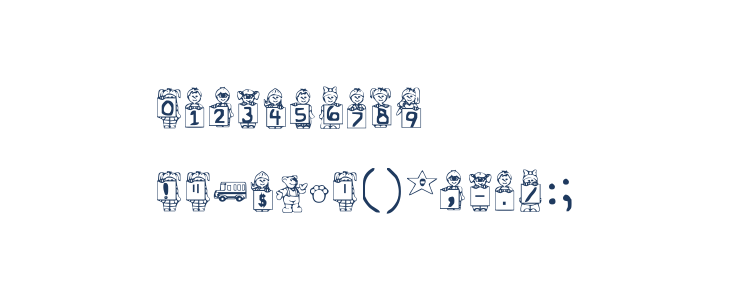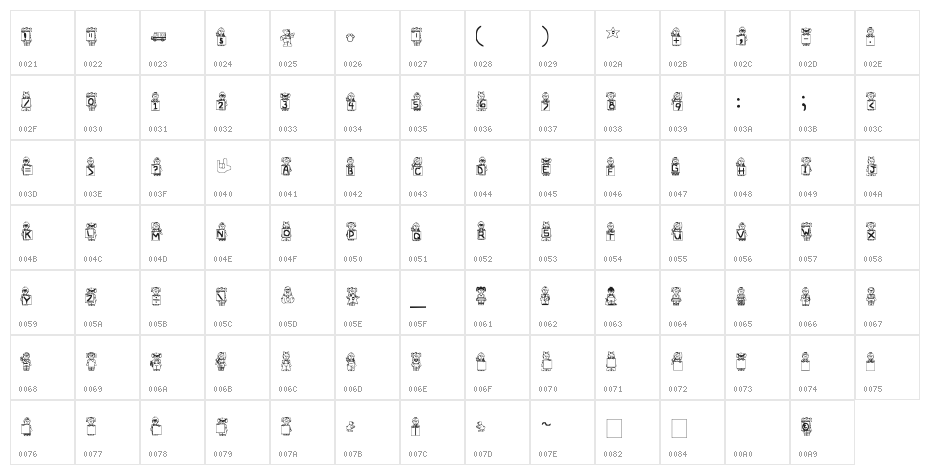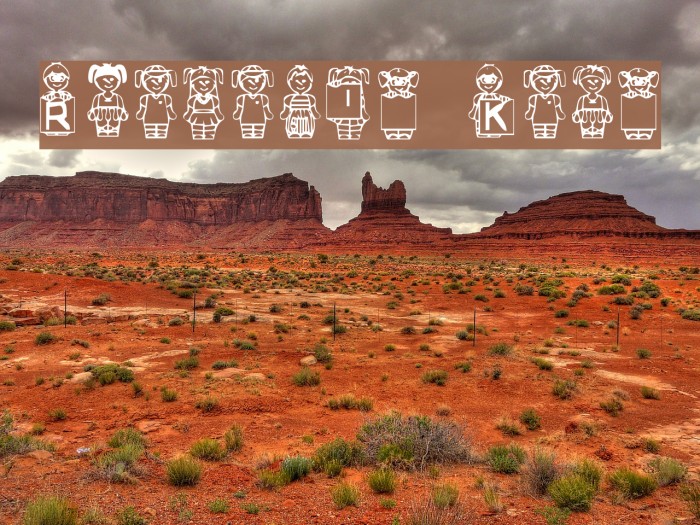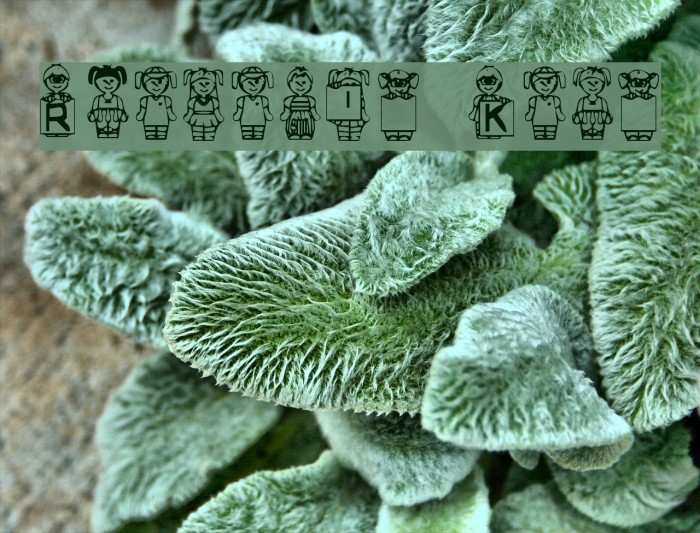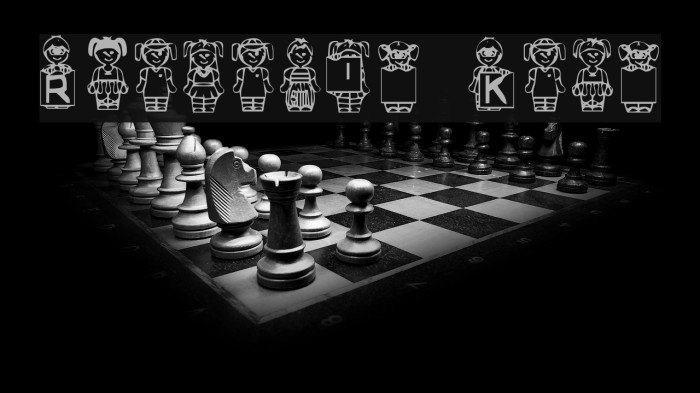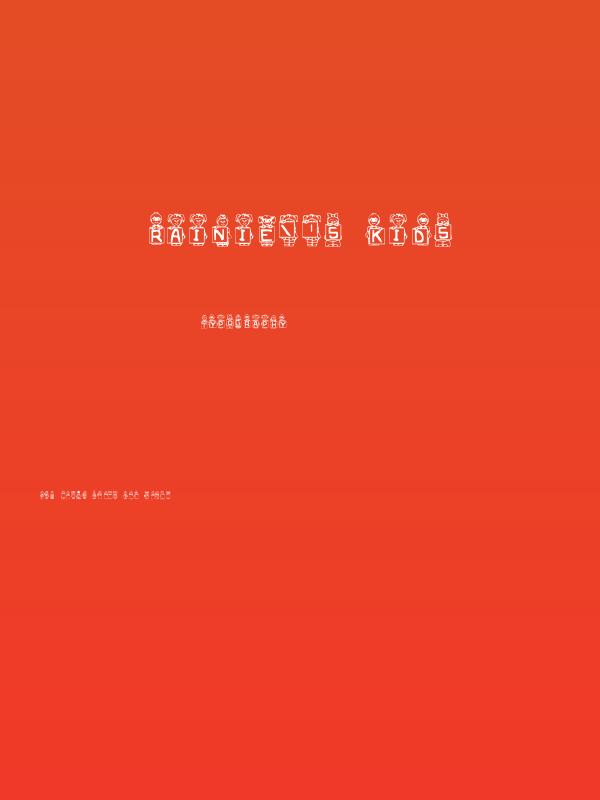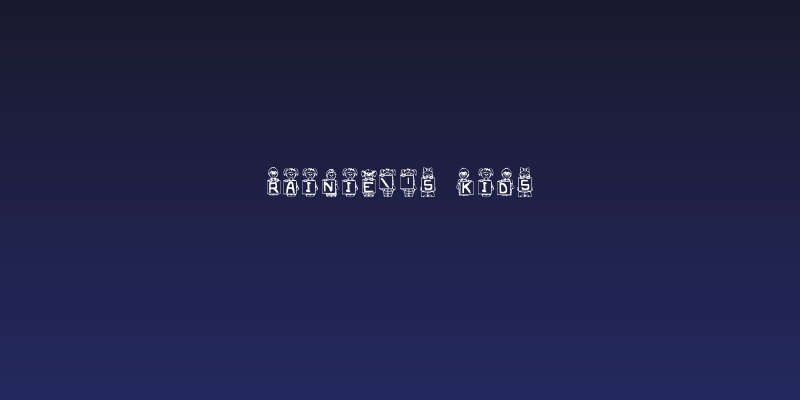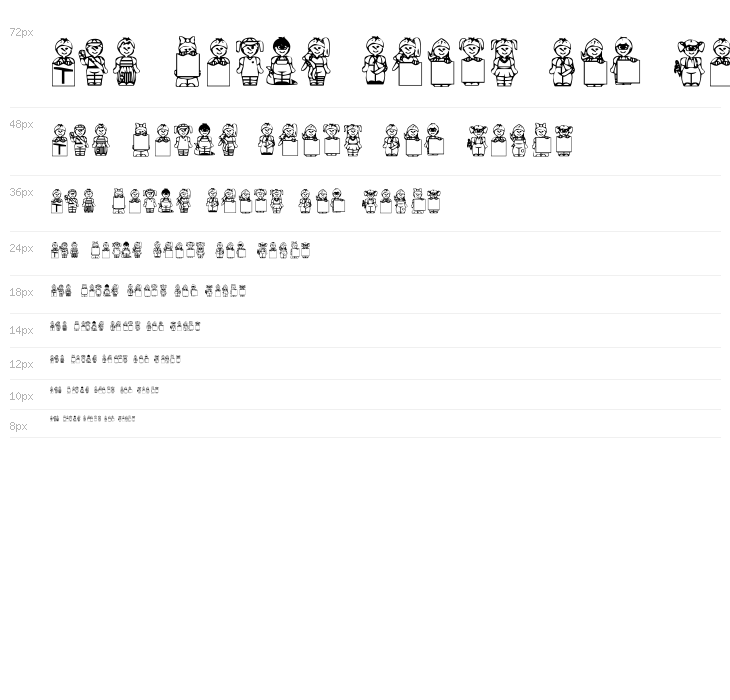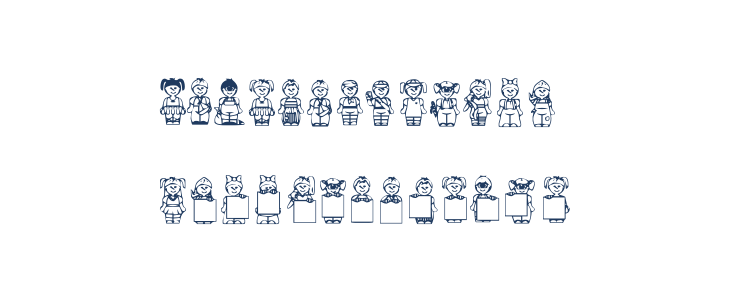
Rainie's Kids Font
Rainie's Kids Description
This playful and whimsical font features characters represented by cartoon children holding blocks with letters, numbers, or symbols. Each character is uniquely styled with different outfits and expressions, adding a lively and engaging element to the text. The font is highly decorative, making it ideal for projects aimed at children or for use in playful, informal contexts. The characters are evenly spaced, ensuring readability while maintaining a fun and dynamic appearance. The font's design is consistent across both uppercase and lowercase letters, as well as numbers and special characters, providing a cohesive look.
Overall StylePlayful, Whimsical
Use CaseHeadlines, Logos, Children's materials
Proposed ProjectsIdeal for children's books, educational materials, birthday invitations, and playful branding.